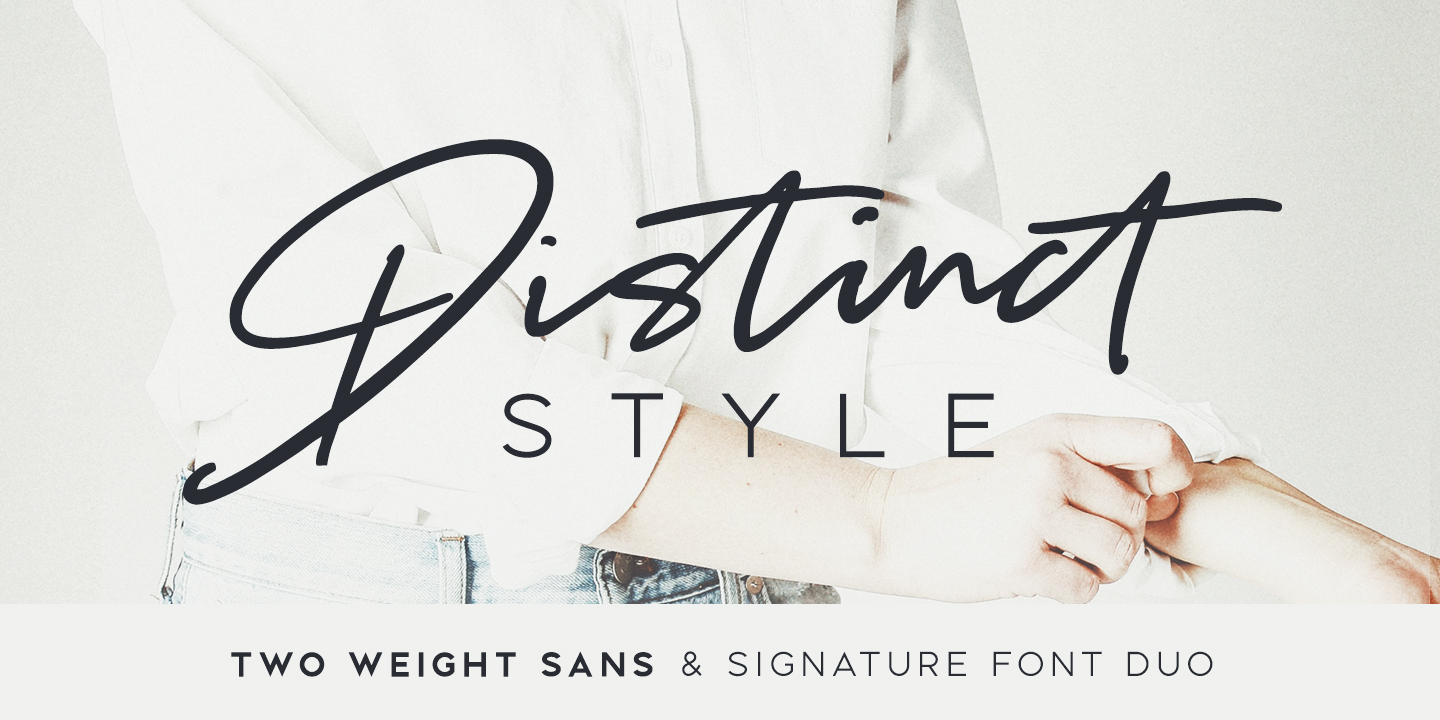
Add a unique flair to your designs with Distinct Style Font Free Download, a sophisticated and versatile typeface that commands attention with its elegant personality. Perfect for branding, editorial projects, invitations, and creative marketing materials, this font blends classic charm with modern aesthetics.
Distinct Style Font features clean lines paired with subtle stylistic details, making it ideal for both digital and print media. Whether you’re crafting a high-end fashion logo or a stylish magazine cover, this font enhances your work with timeless appeal and clarity.